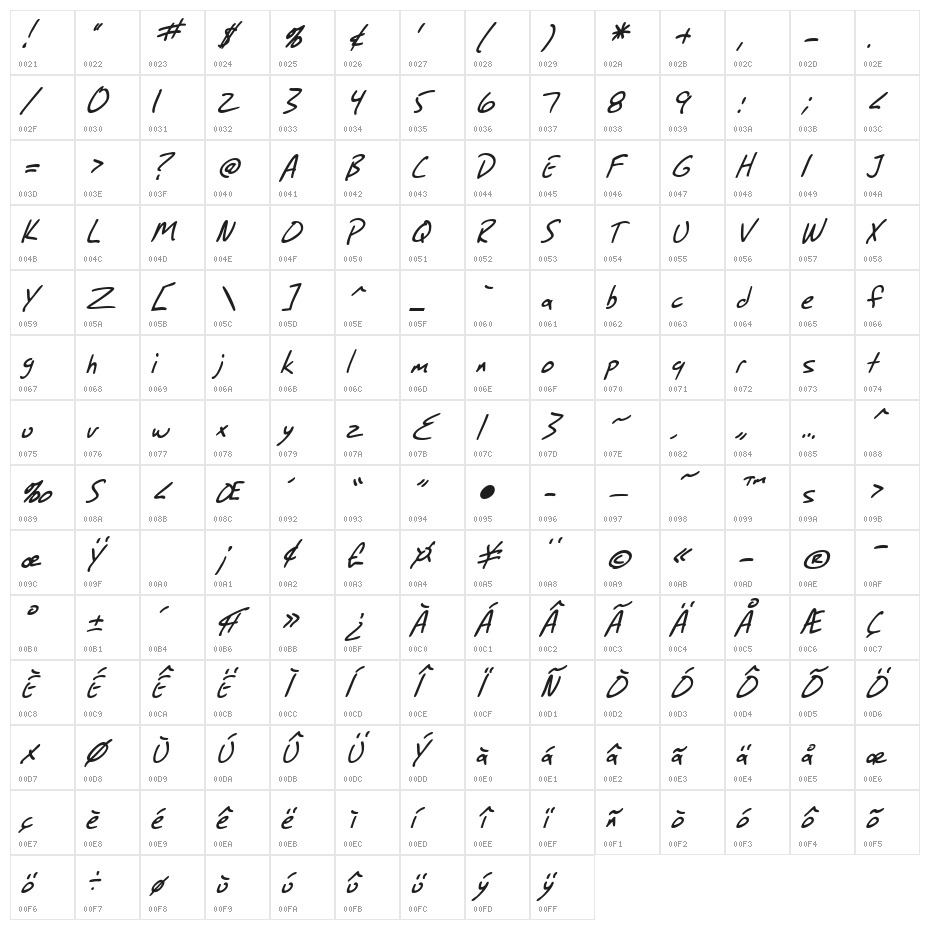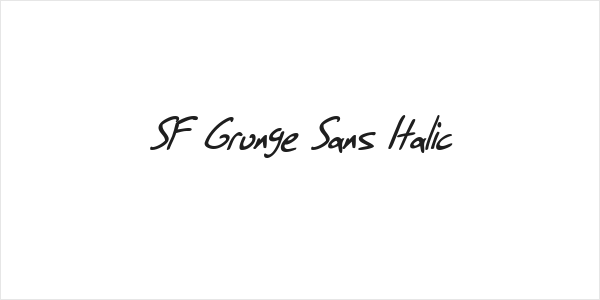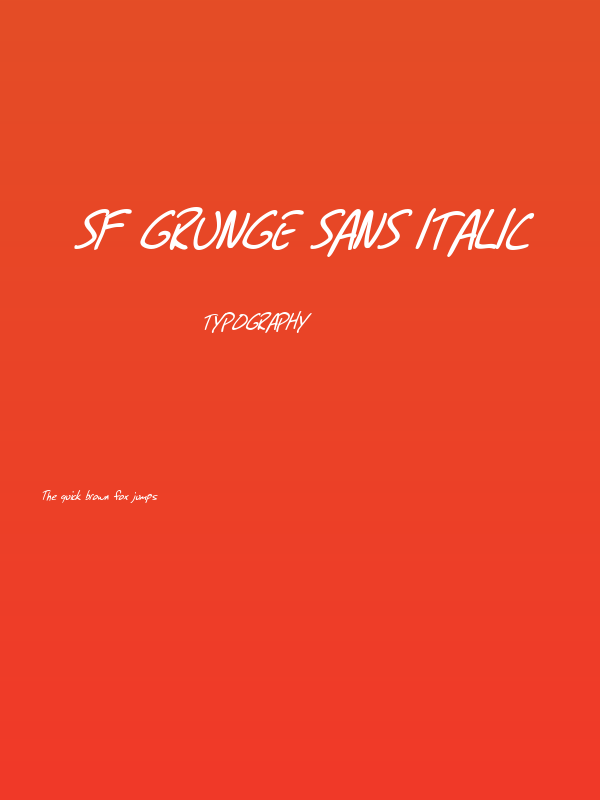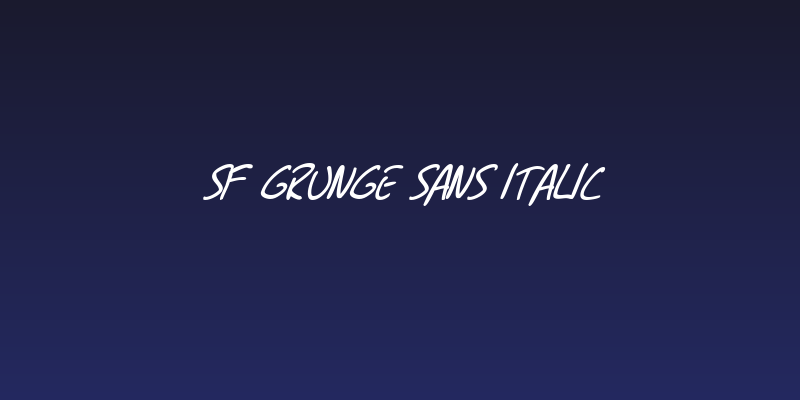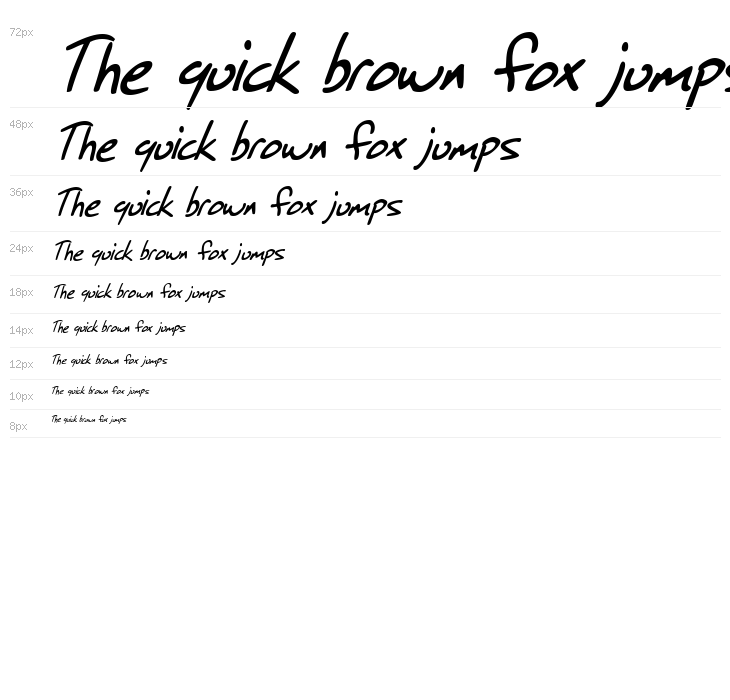
SF Grunge Sans Italic Font
SF Grunge Sans Italic Description
This font exudes a casual and dynamic energy with its handwritten style, characterized by fluid and slightly irregular strokes that mimic natural handwriting. The letters are slanted, adding to the informal and relaxed feel, while maintaining legibility. The uppercase and lowercase letters are well-balanced, with a consistent flow that makes it suitable for creative and expressive projects. The numerals and special characters are crafted with the same attention to detail, ensuring a cohesive look across all text elements.
| Use Case | Logos, Headlines, Informal Text |
| Proposed Projects | Ideal for projects that require a personal touch, such as greeting cards, invitations, posters, and social media graphics. |